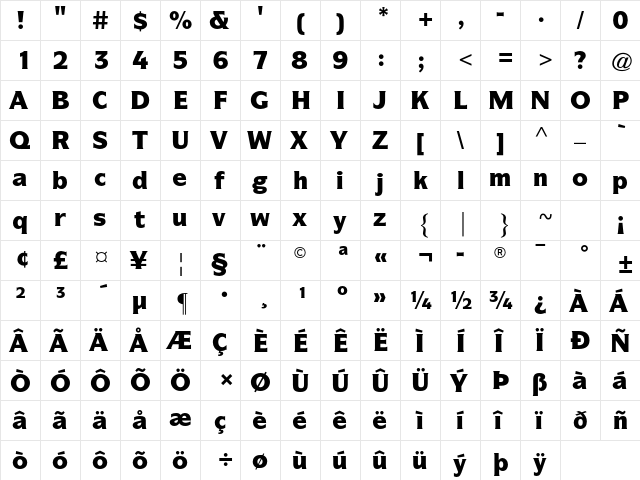
ITC Symbol Std Black
| Designer | Aldo Novarese |
Design Context for ITC Symbol Std Typeface
ITC Symbol Std is a composed and adaptable typeface that performs quietly and consistently across a wide range of design contexts.